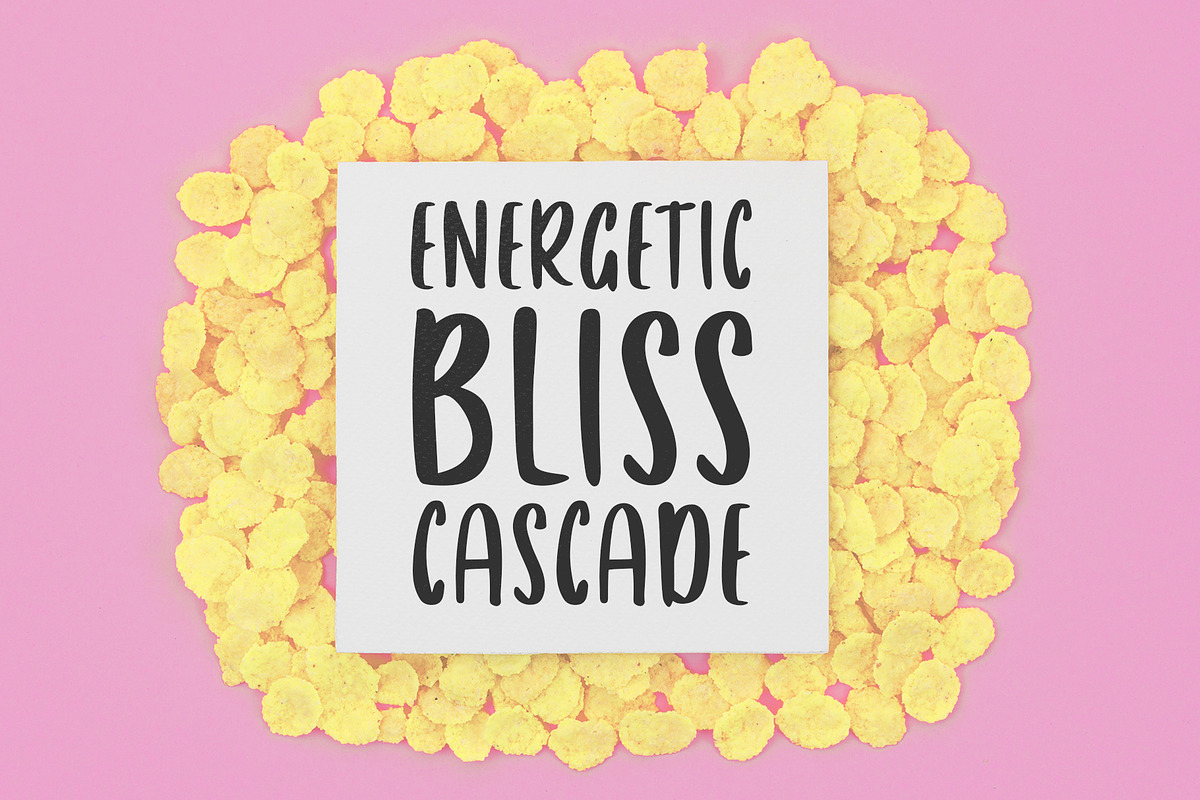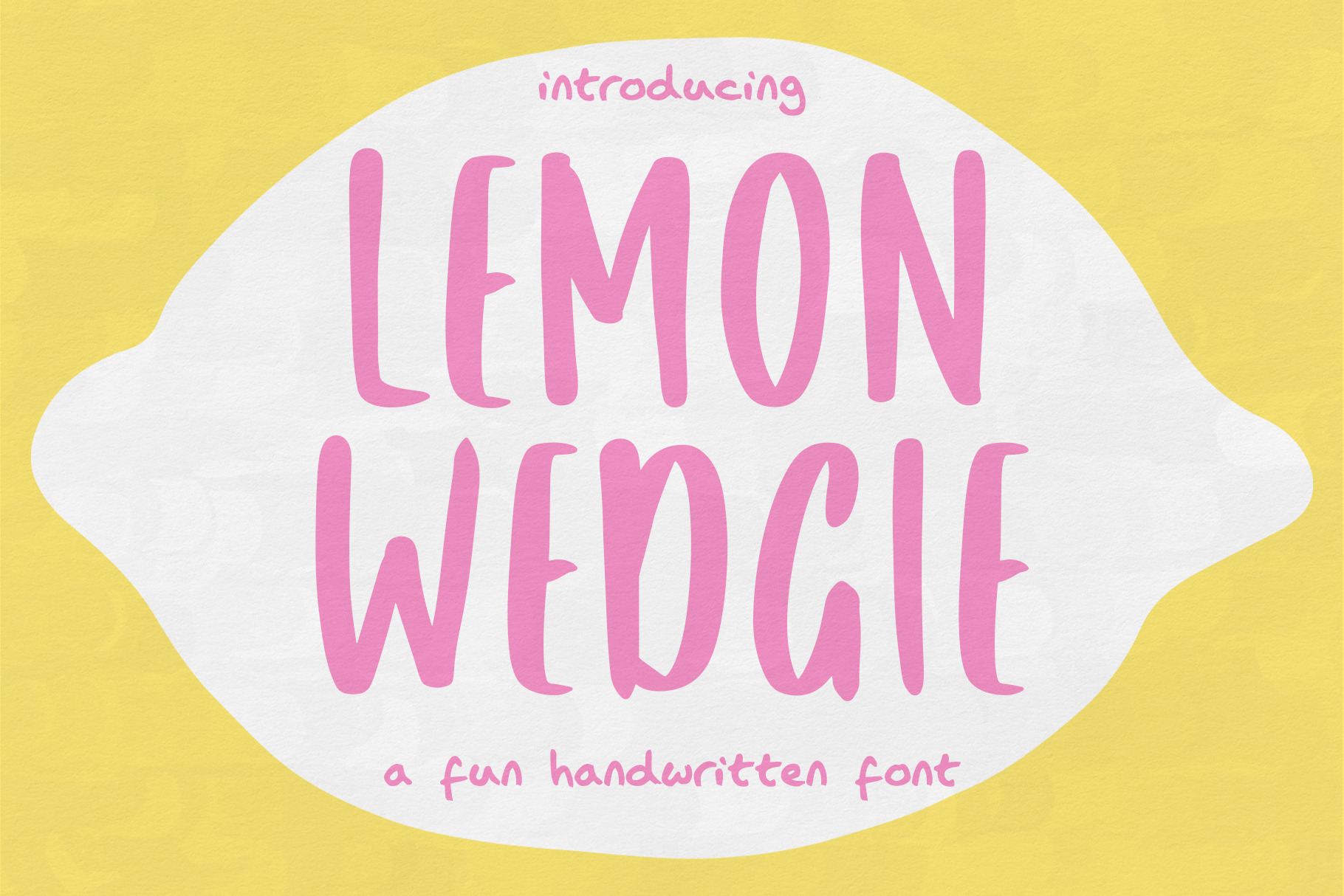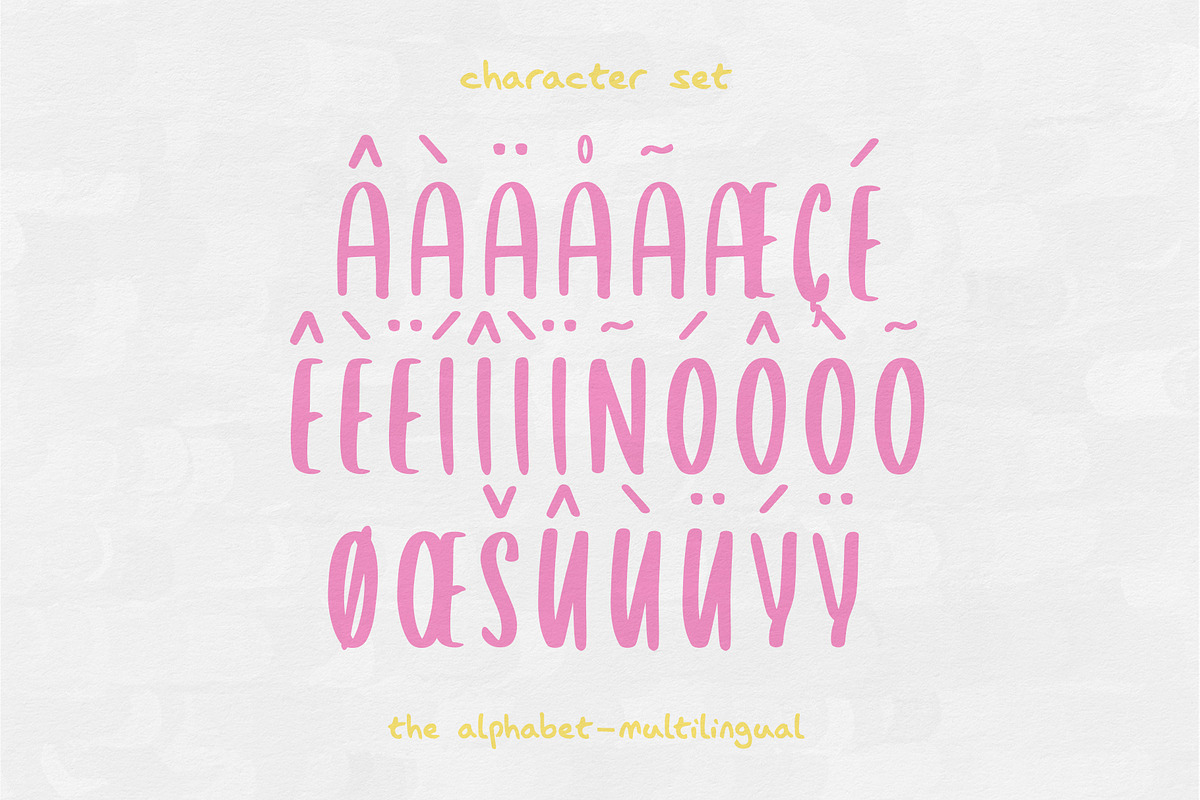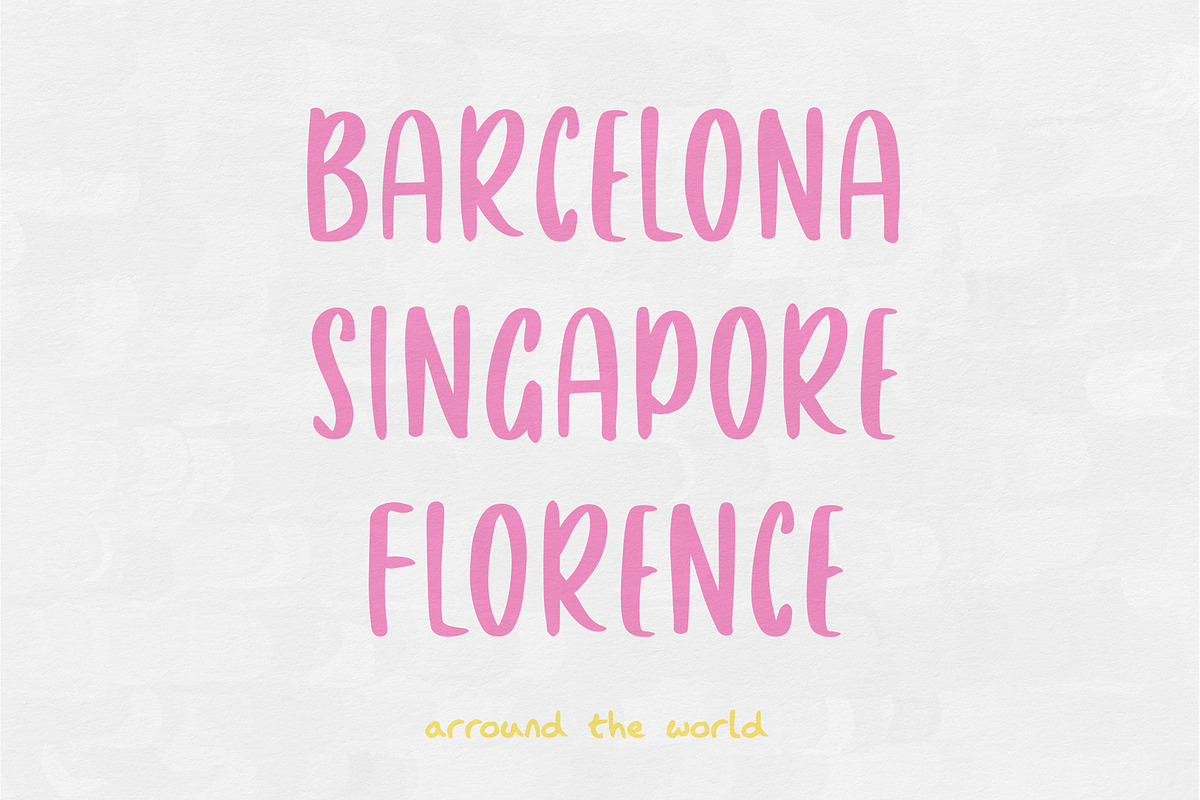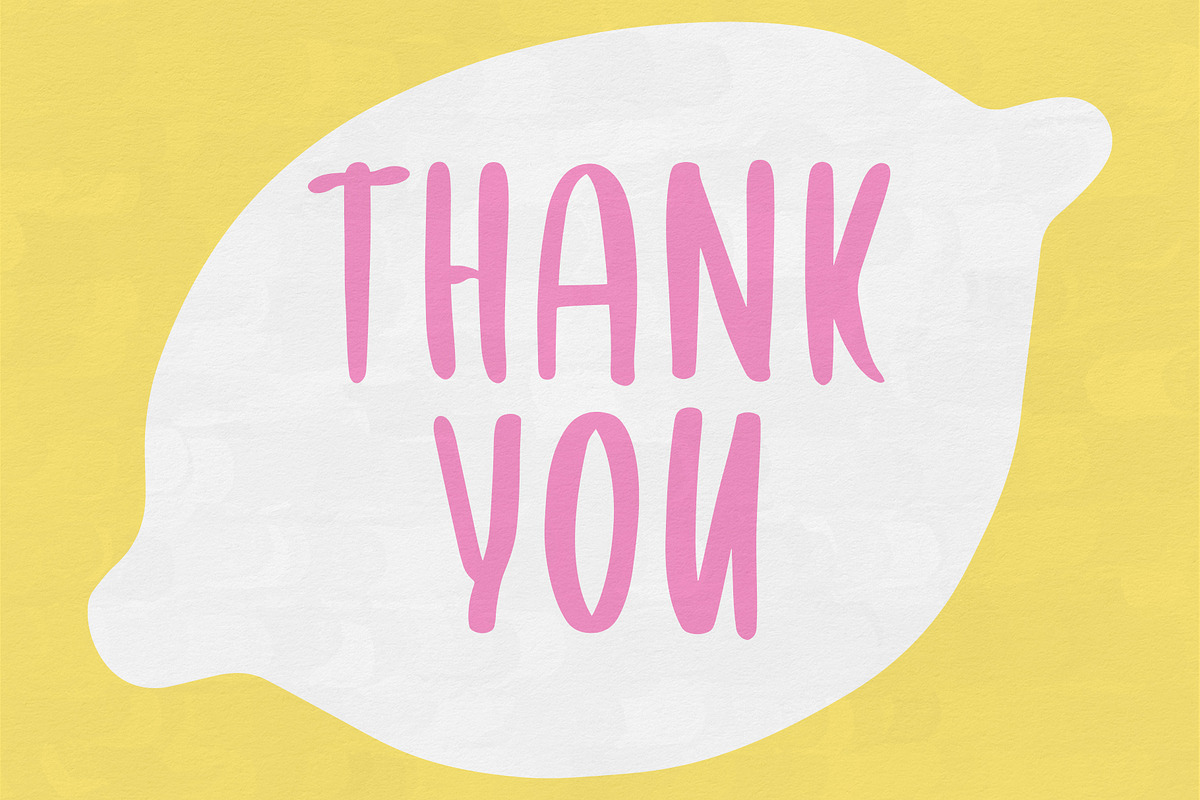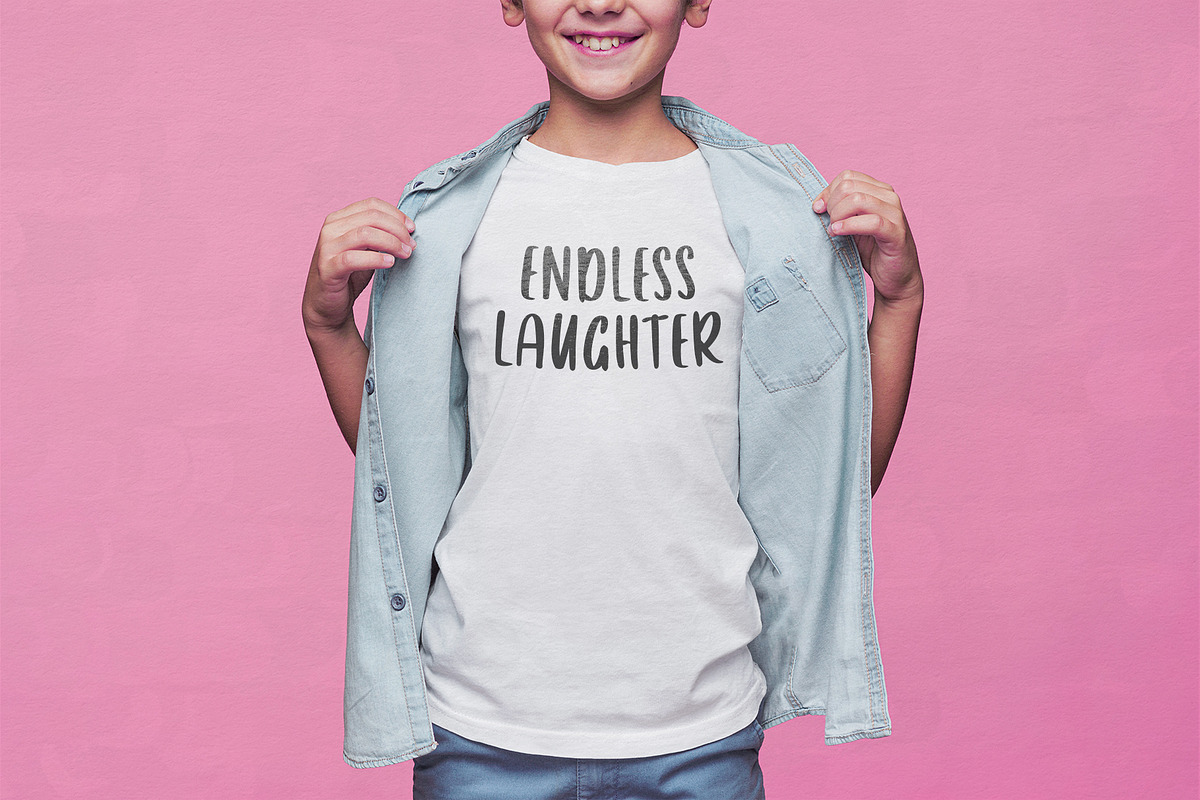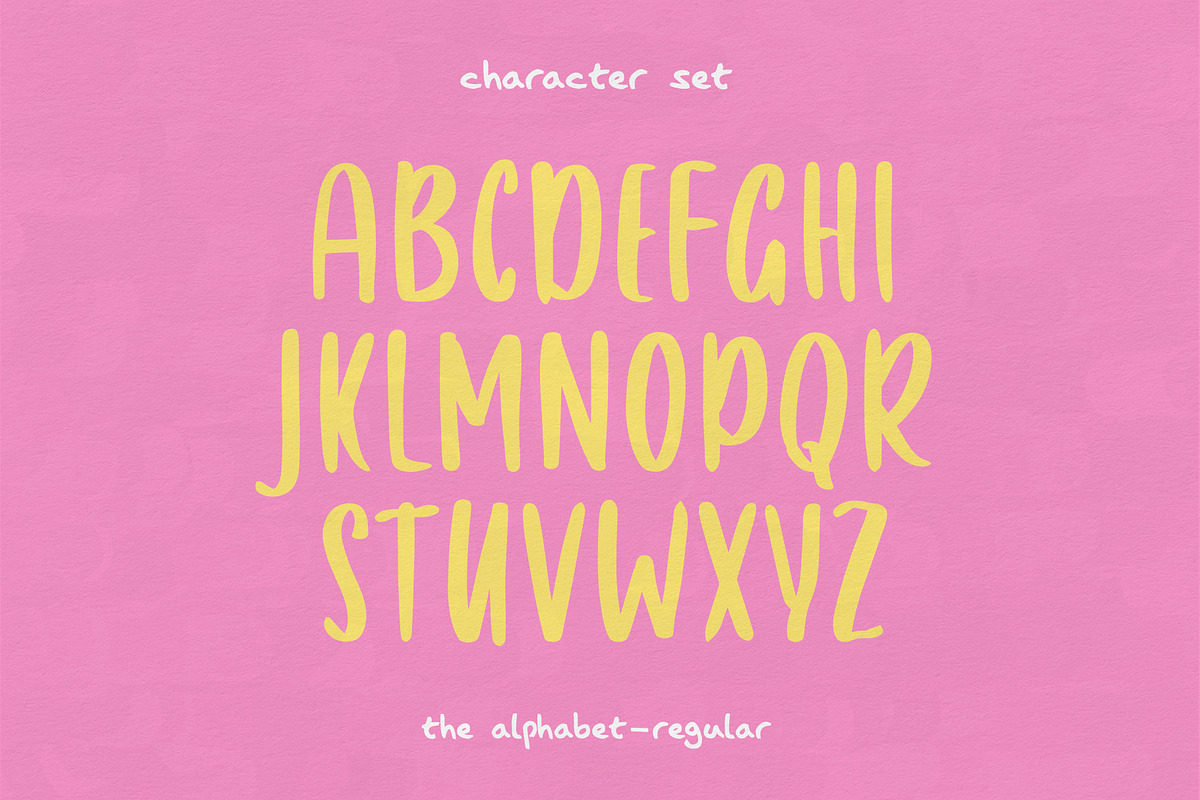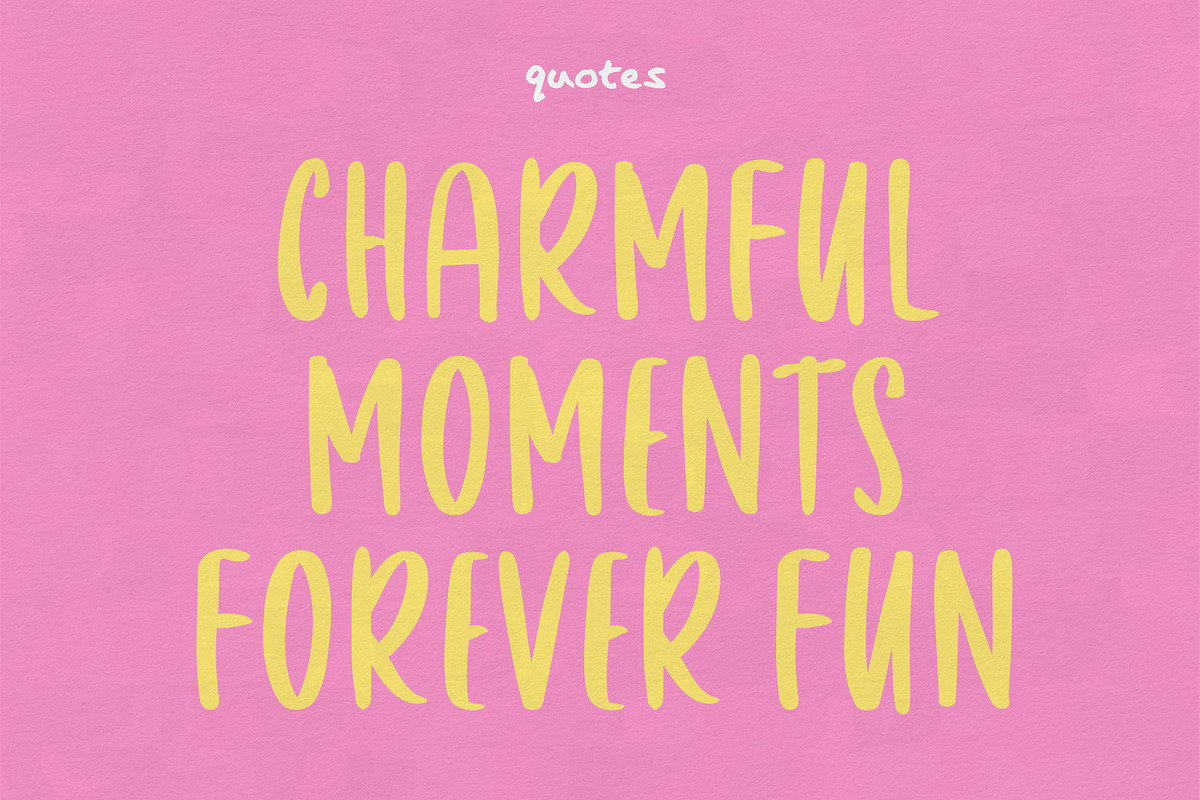
Lemon Wedgie - Handwriting Font
Lemon Wedgie is a delightful and whimsical handwriting font that injects a burst of fun and playfulness into any design project. This typeface available in SVG format, compatible with advanced tools such as Cricut and Glowforge, and for use in Procreate. With its lively strokes and quirky characters, this font exudes a carefree charm that is perfect for adding a touch of personality to invitations, greeting cards, posters, and more.